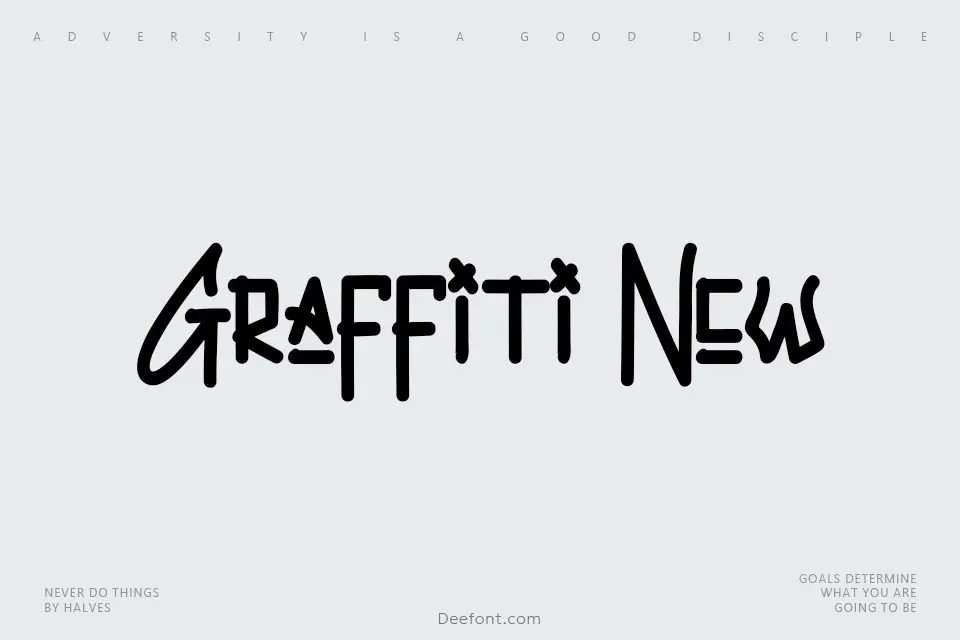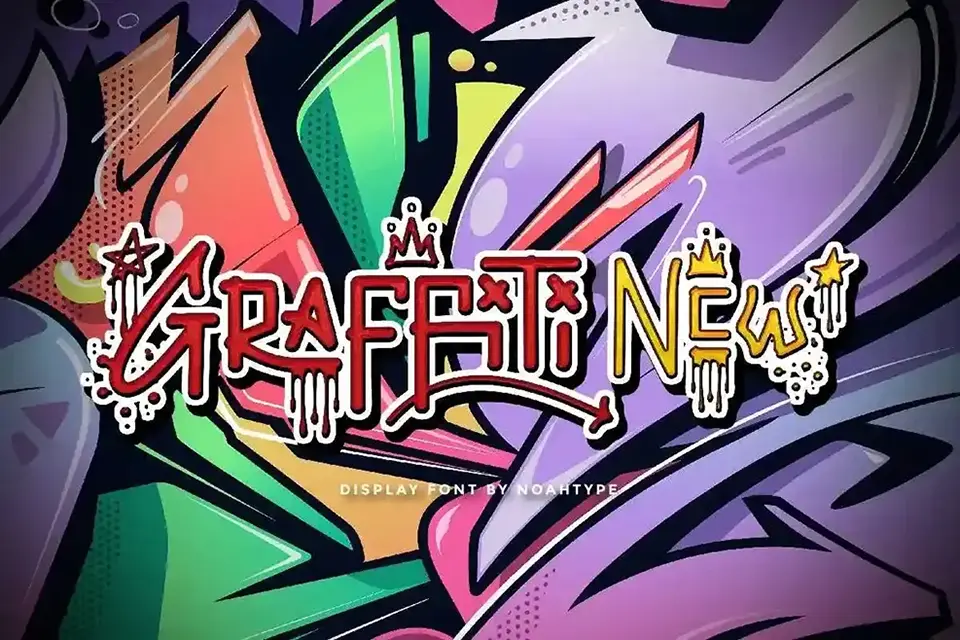
Graffiti New Font
Graffiti New is a striking display font inspired by mural street art and graffiti culture. This sans serif typeface features an urban, rebellious aesthetic with dynamic strokes and artistic flair, making it ideal for posters, album covers, logos, and headlines that demand attention. Perfect for games, horror designs, and brand projects seeking an edgy, contemporary vibe that captures the raw energy of street art.